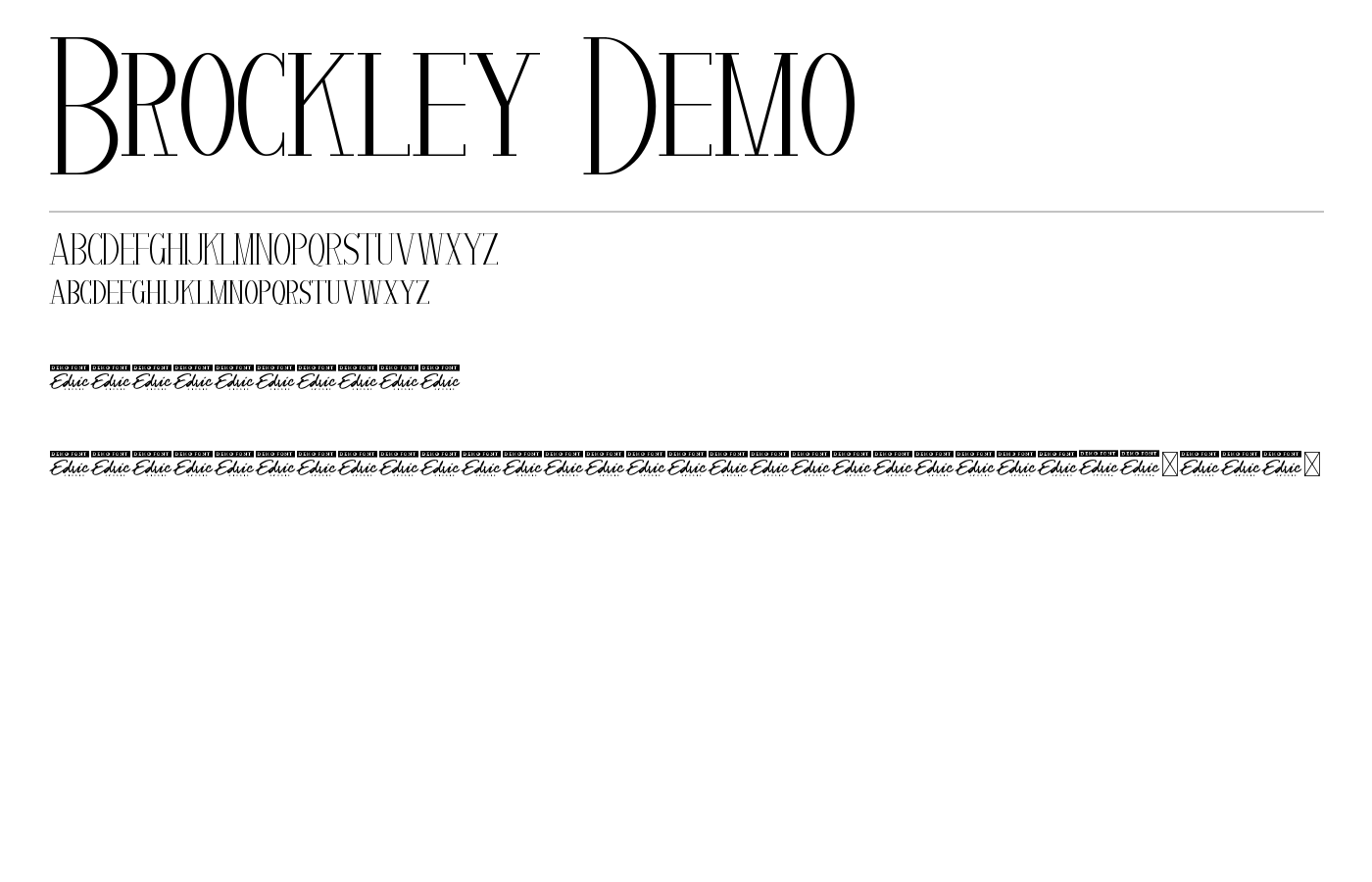
Brockley Demo is a tall, elegant serif font with a modern Didone style, characterized by its high contrast between thick and thin strokes and delicate, bracketed serifs. Its condensed width and refined letterforms convey sophistication and luxury, making it ideal for fashion branding, editorial headlines, and upscale packaging where a touch of class and style is desired. This font shines in contexts that require a bold yet graceful presence, perfect for creating a lasting impression.
Brockley Demo Font
About Brockley Demo Font